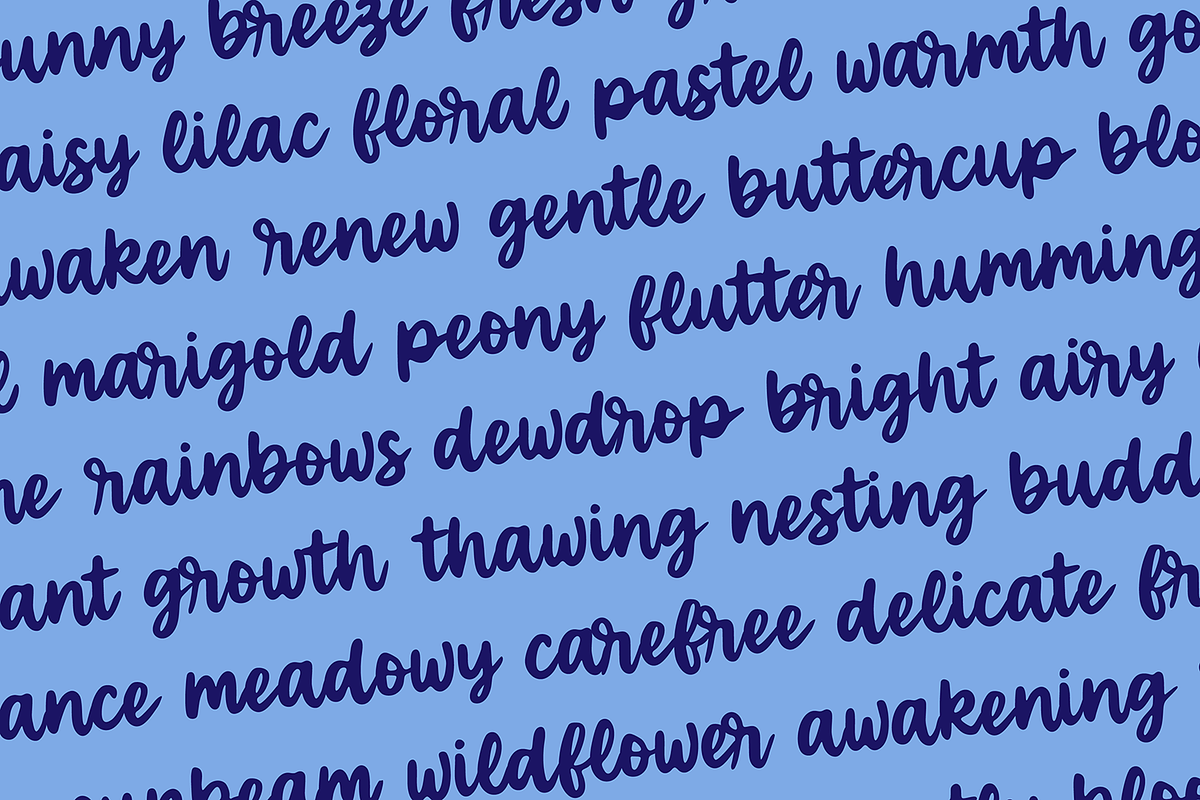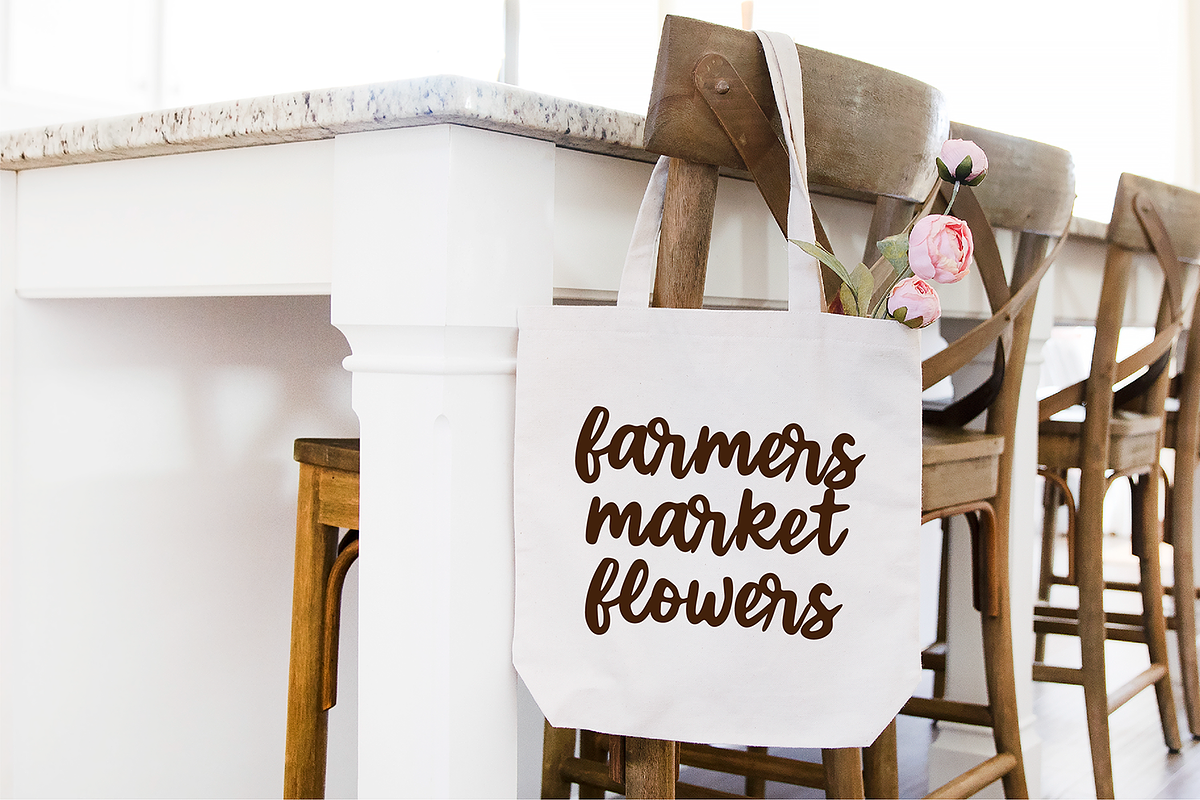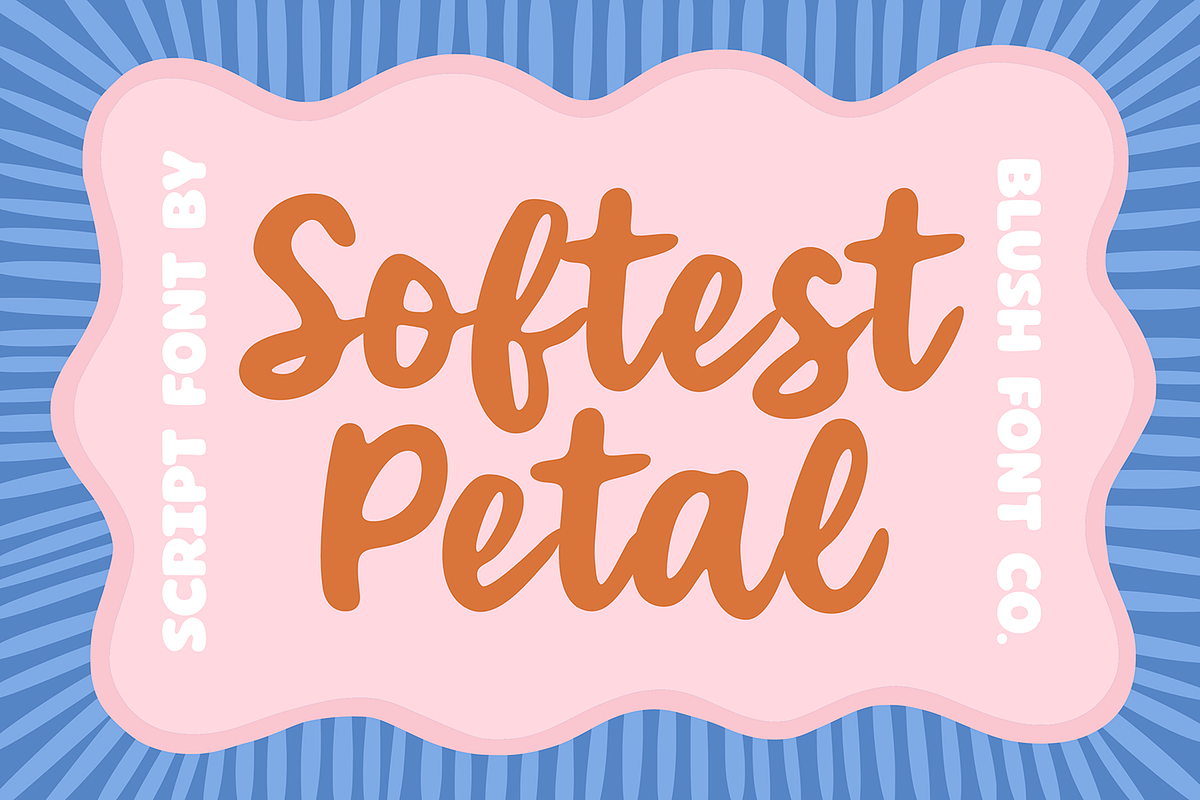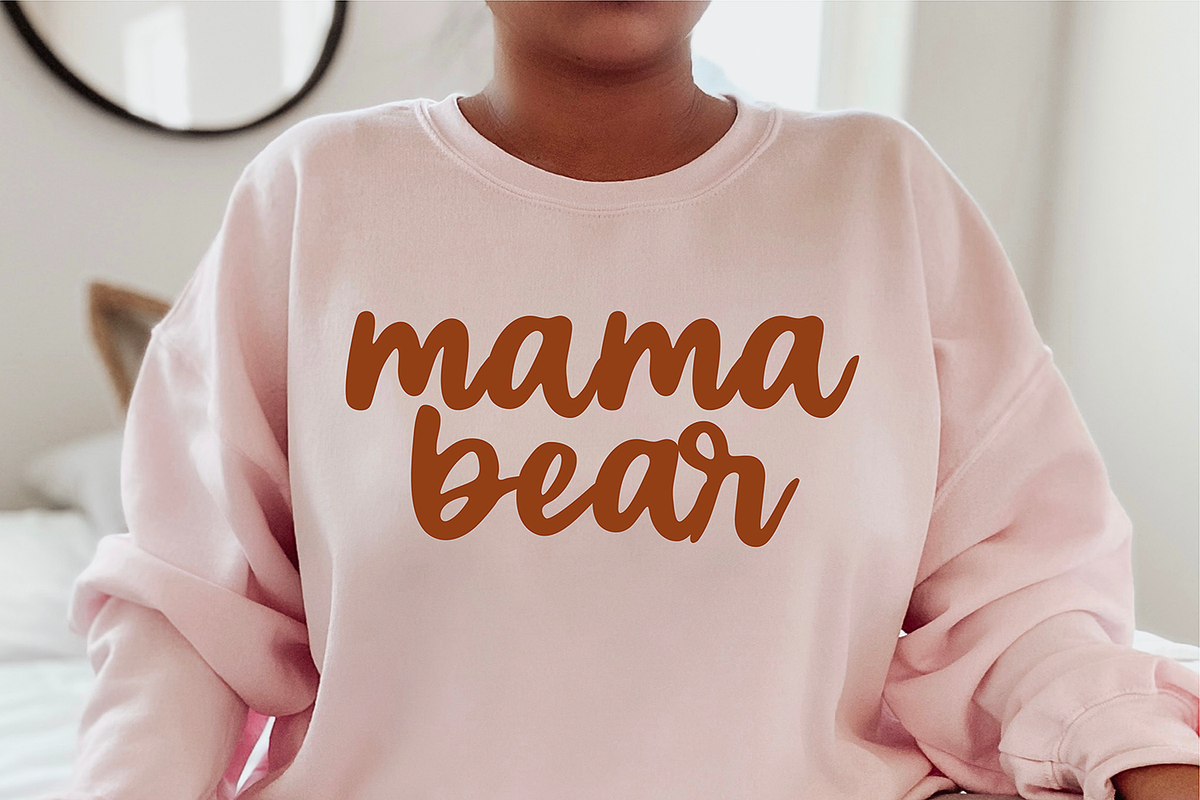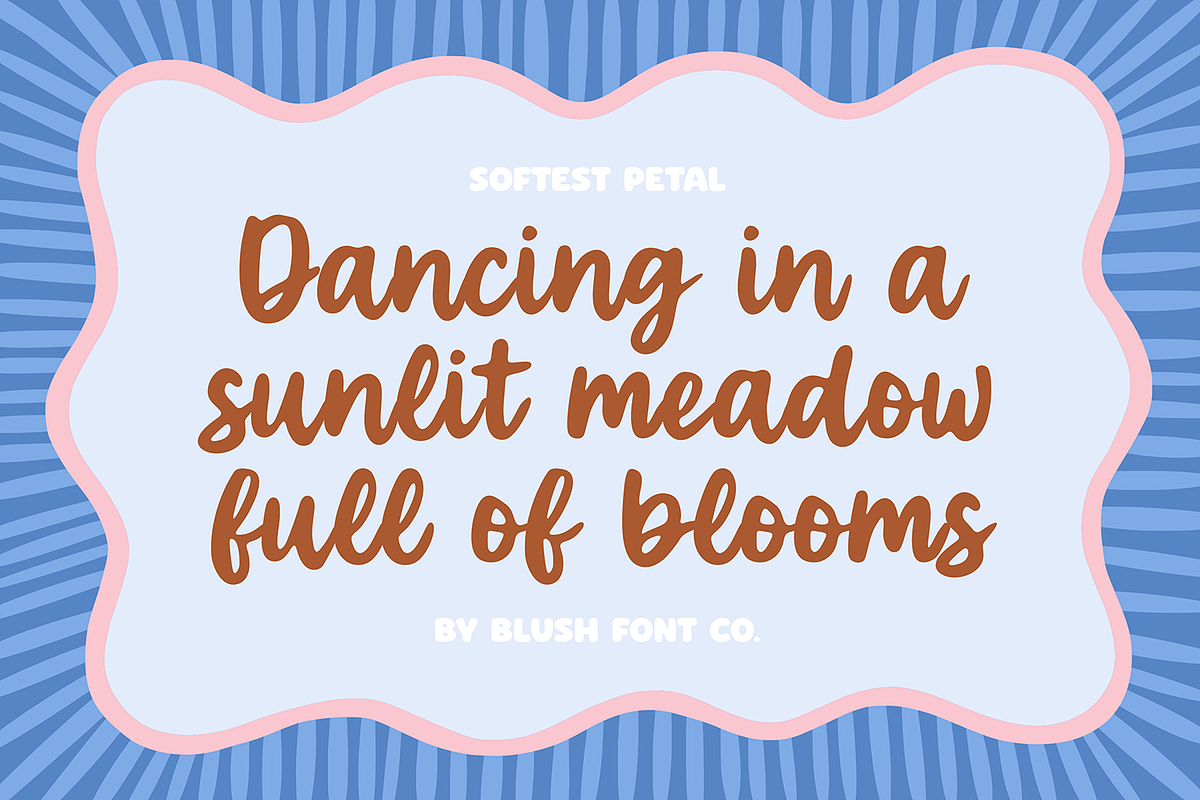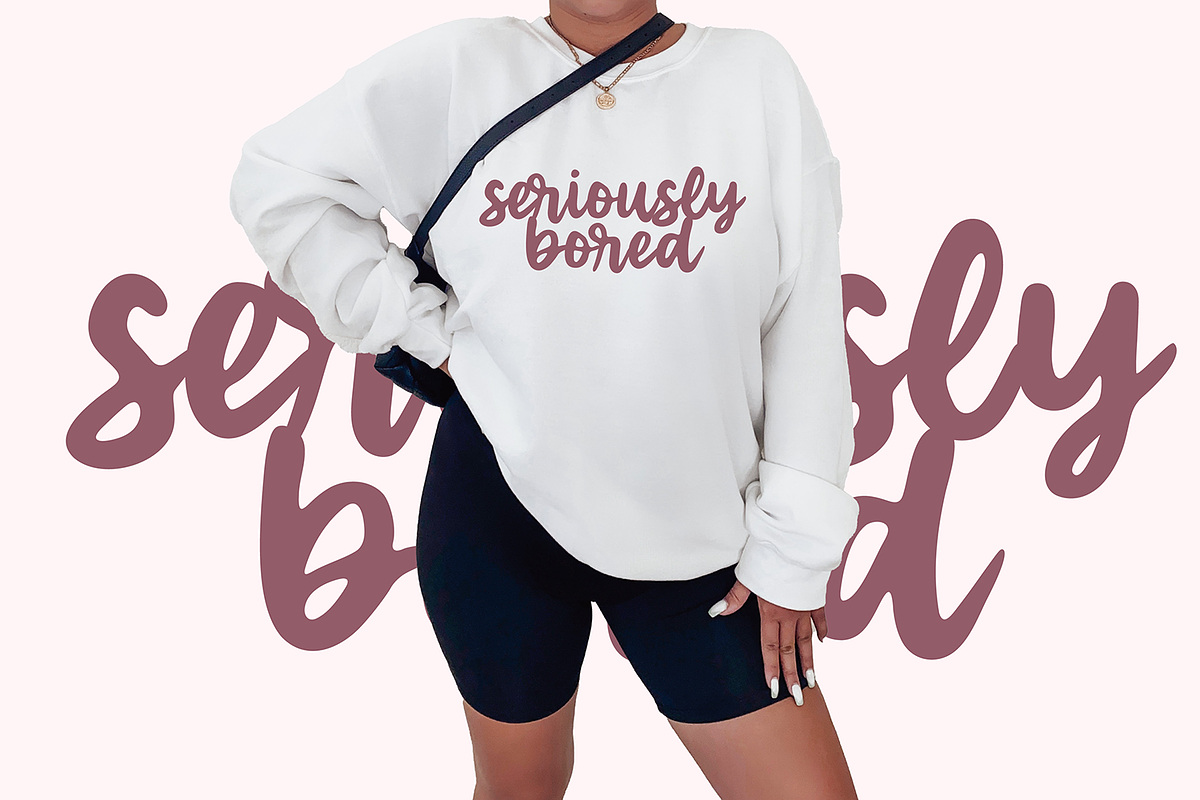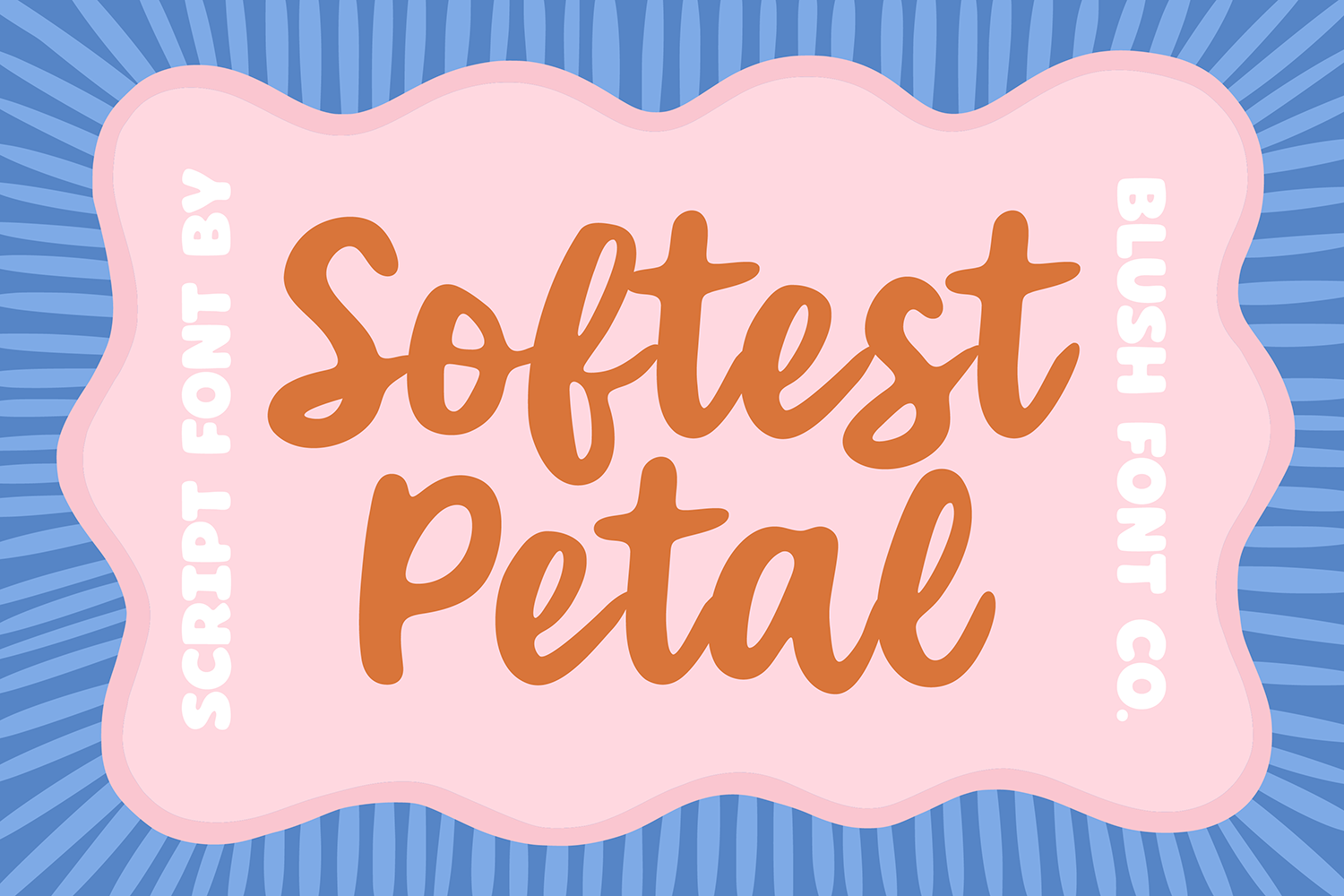
SOFTEST PETAL Vintage Brush Font
This bold brush script font is perfect for Cricut, Canva, Procreate, and all your creative projects. Designed with thick, hand-painted strokes and a natural brush texture, it’s ideal for logos, t-shirts, social media graphics, branding, stickers, and more.
The lettering has a confident, vintage feel with smooth curves and bold lines that stand out beautifully on any design. Whether you're creating eye-catching merch, aesthetic Instagram posts, or custom vinyl designs, this font gives your work a strong, handwritten look that feels both trendy and timeless.
Perfect for: – Cricut + Silhouette projects (vinyl, shirts, decals) – Canva designs + social media graphics – Logos + branding + packaging – T-shirt designs + merch – Stickers, labels, and digital products – Procreate + design apps
This font is a go-to if you want a bold, brush-style script that feels expressive, vintage, and easy to use across all platforms.